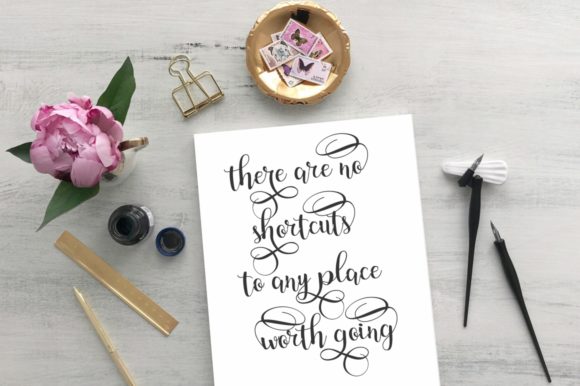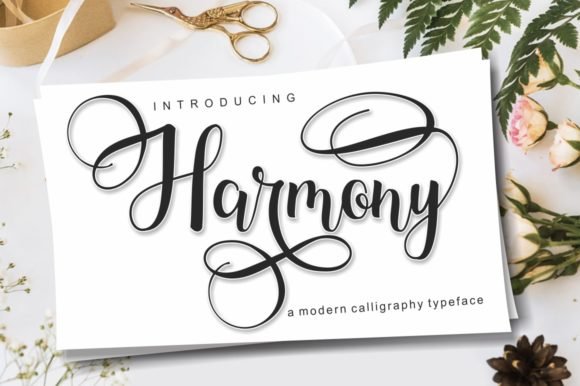
Introduction to Harmony Font
Harmony is a sweet and delicate handwritten font.
It is PUA encoded, which means you can access all of the glyphs and swashes with ease It features a varying baseline, smooth lines, gorgeous glyphs and stunning alternates.
Harmony Font offers exceptional quality and versatility, making it a valuable addition to your design toolkit. Whether you’re creating for personal projects or commercial use, Harmony Font delivers professional results.